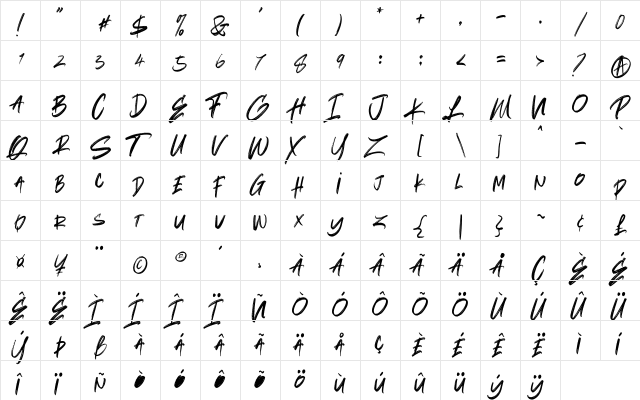
Black Theory Regular
| Foundry | Dirtyline Studio |
| Designer | Hendra Maulia |
Design Context for Black Theory Typeface
Black Theory is a composed and adaptable typeface that performs quietly and consistently across a wide range of design contexts.